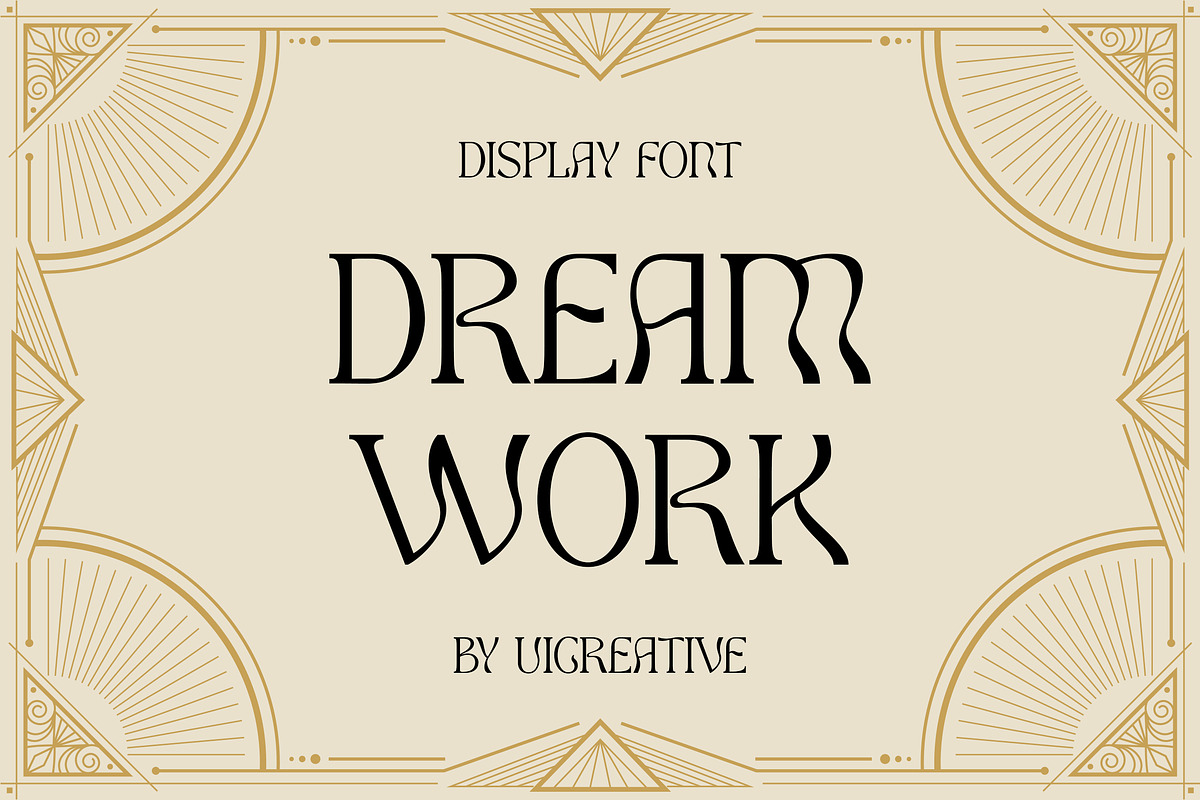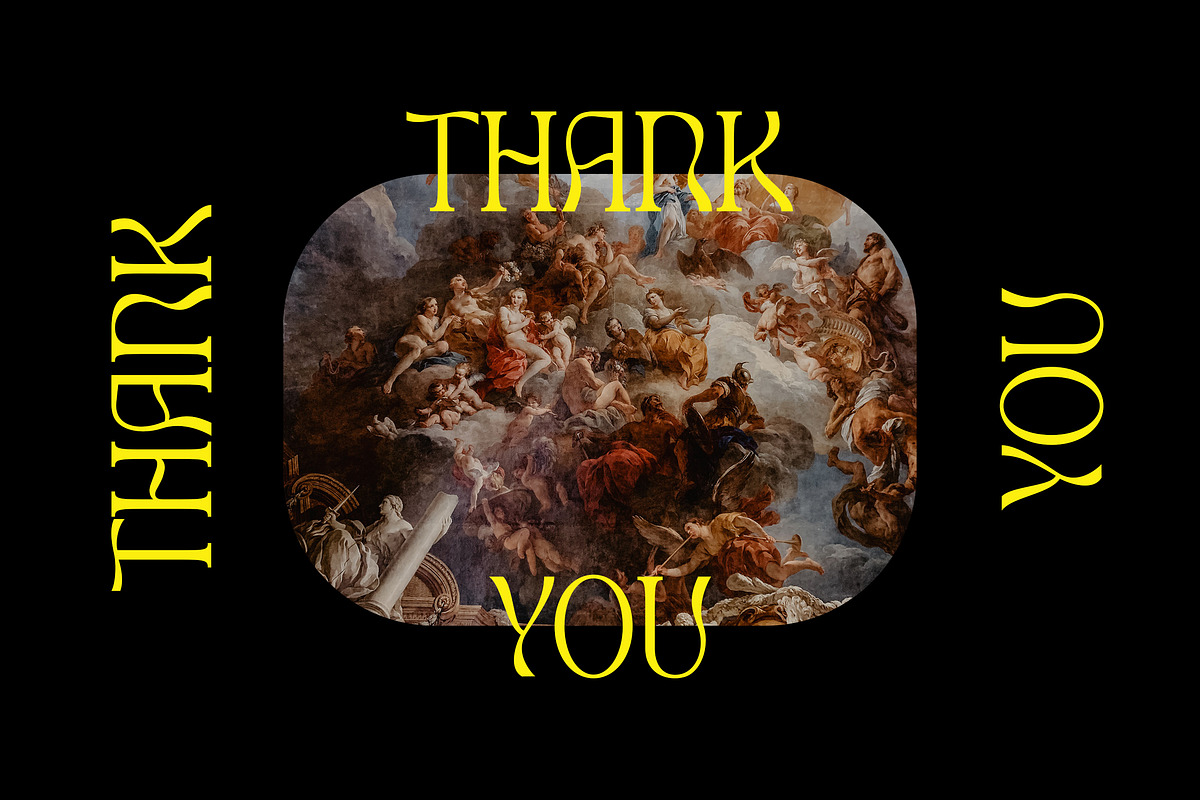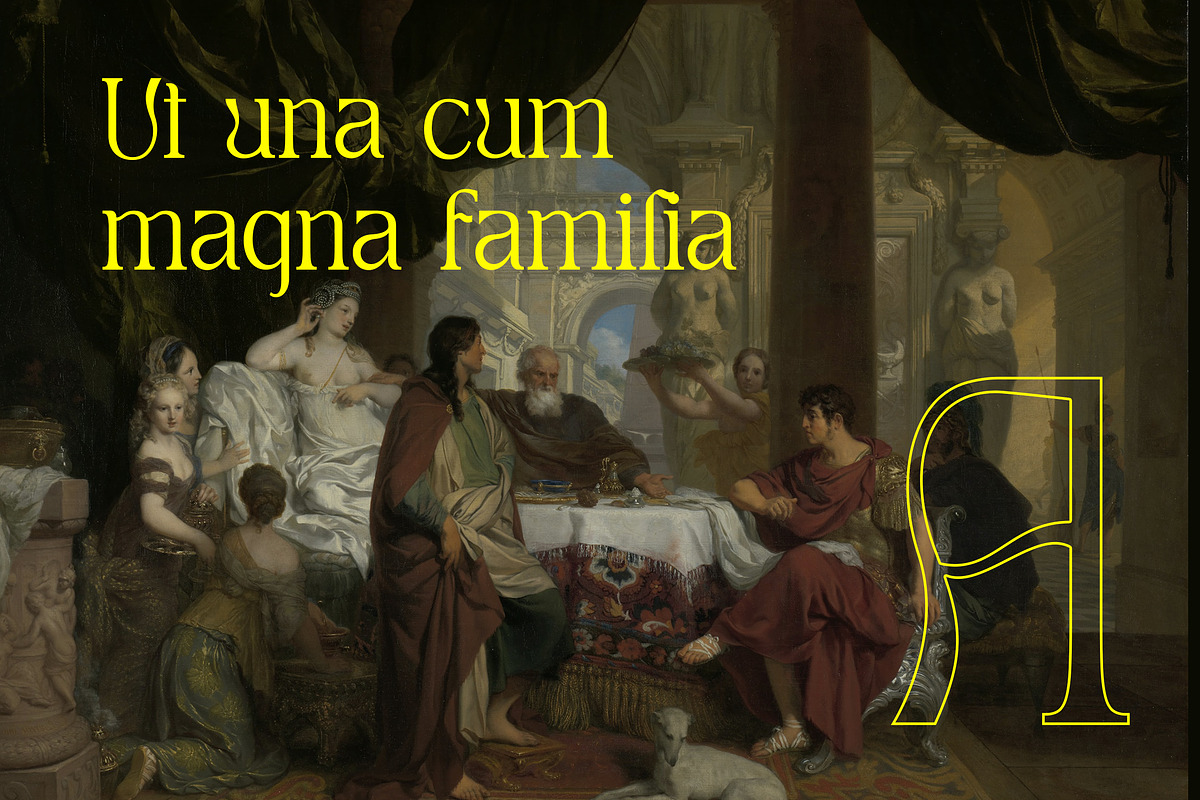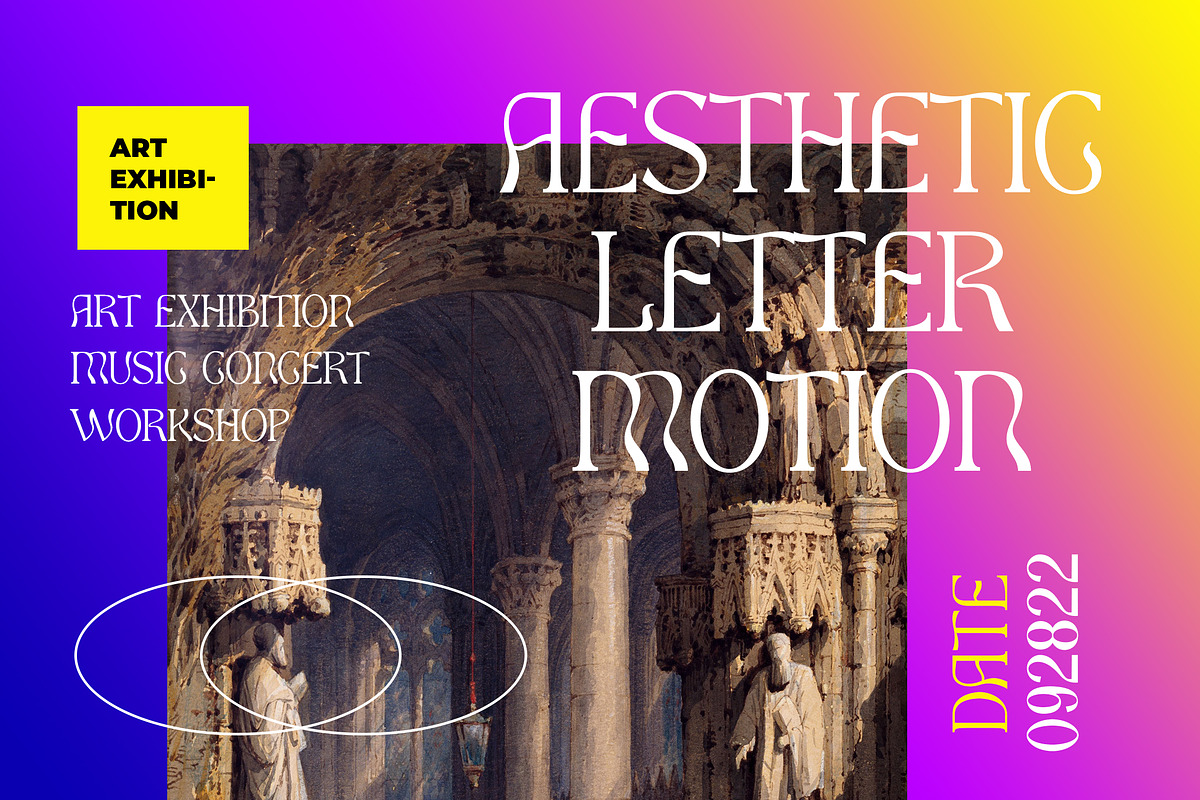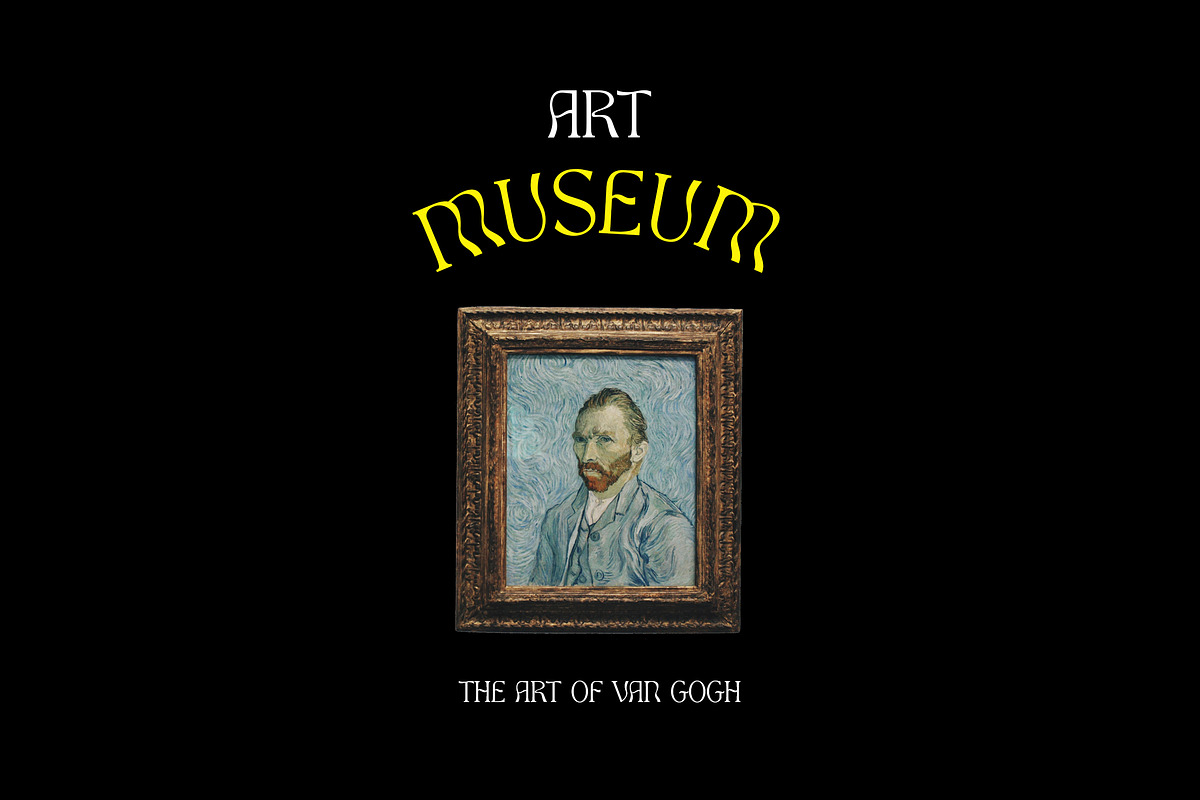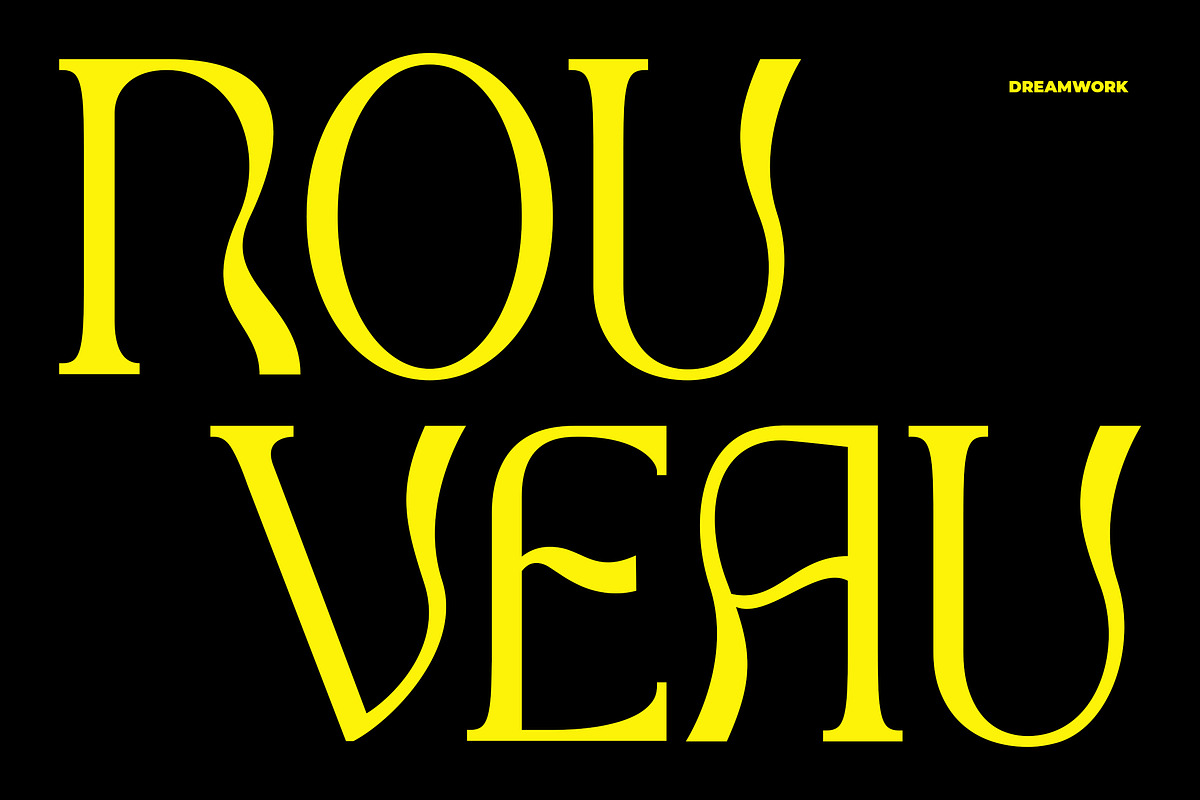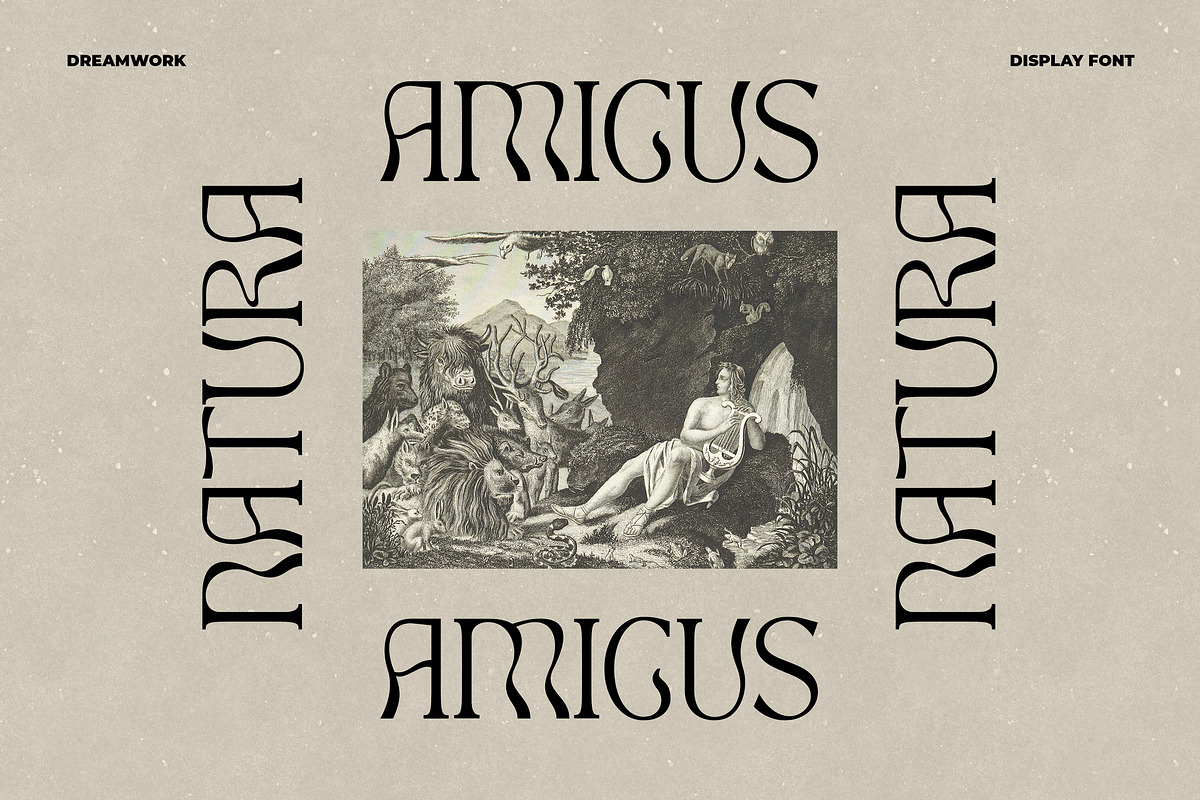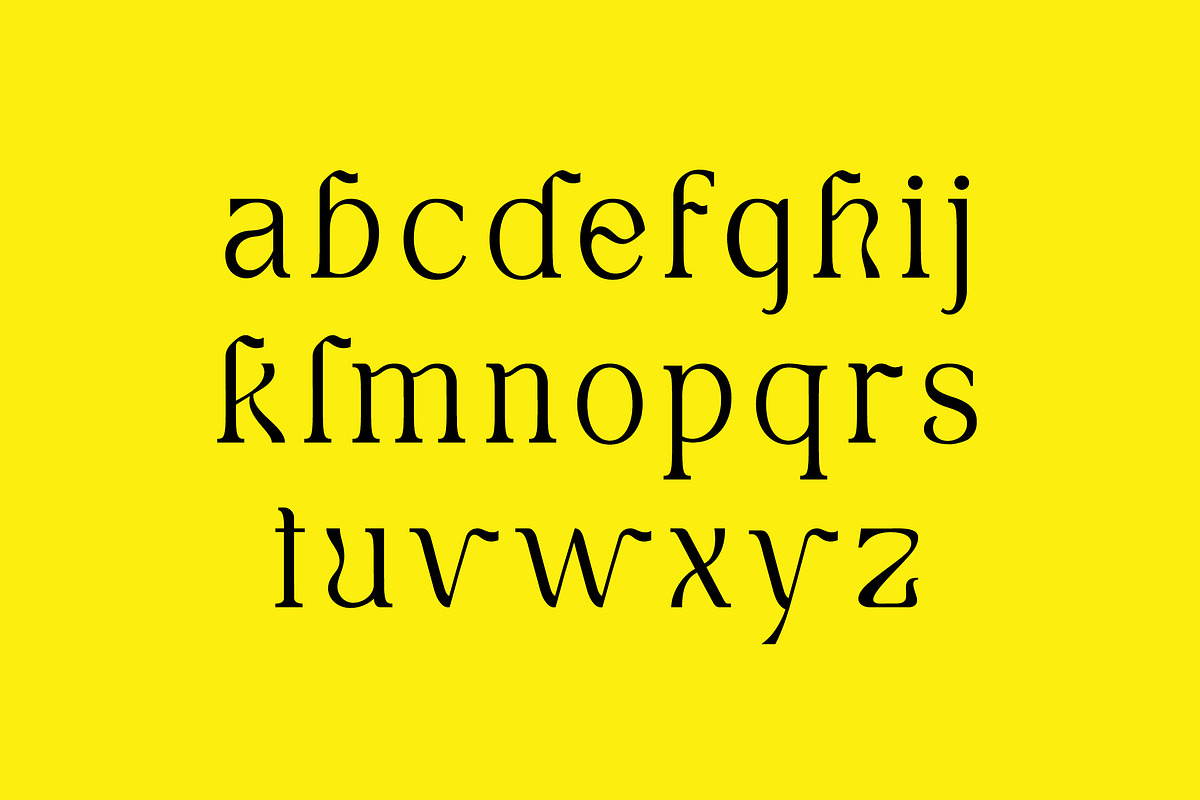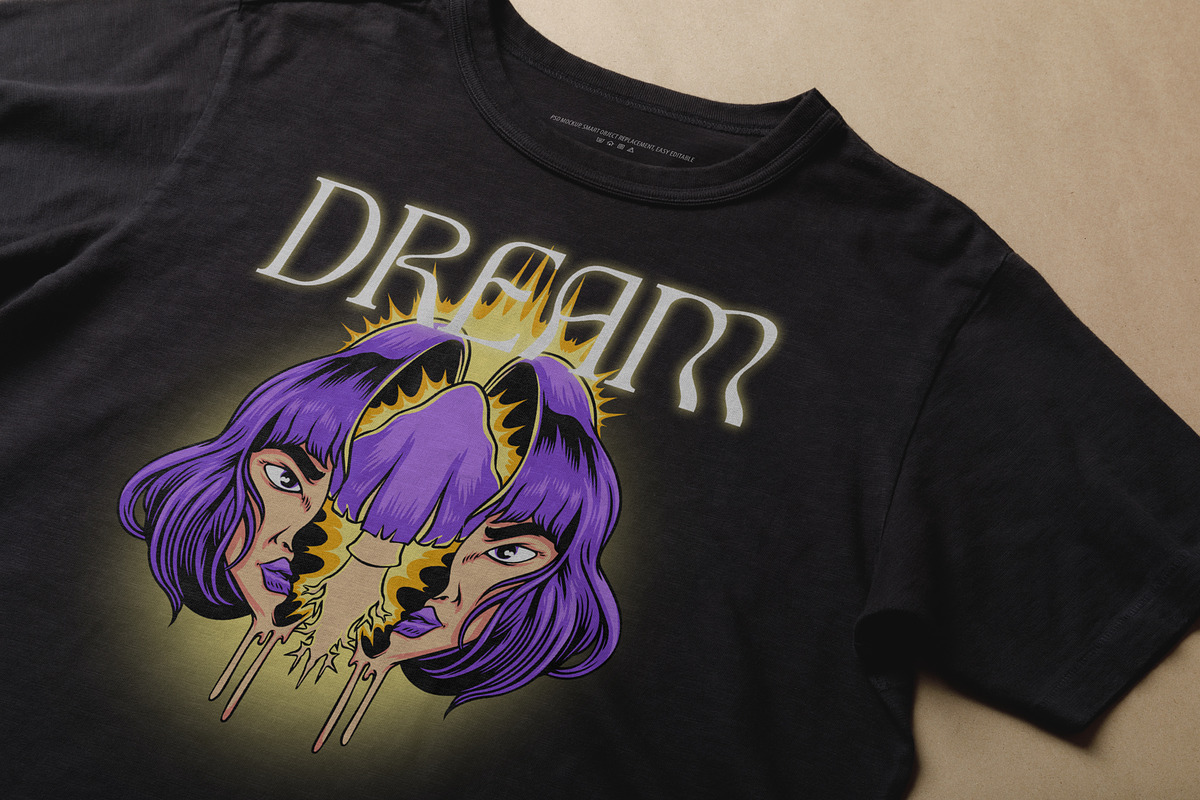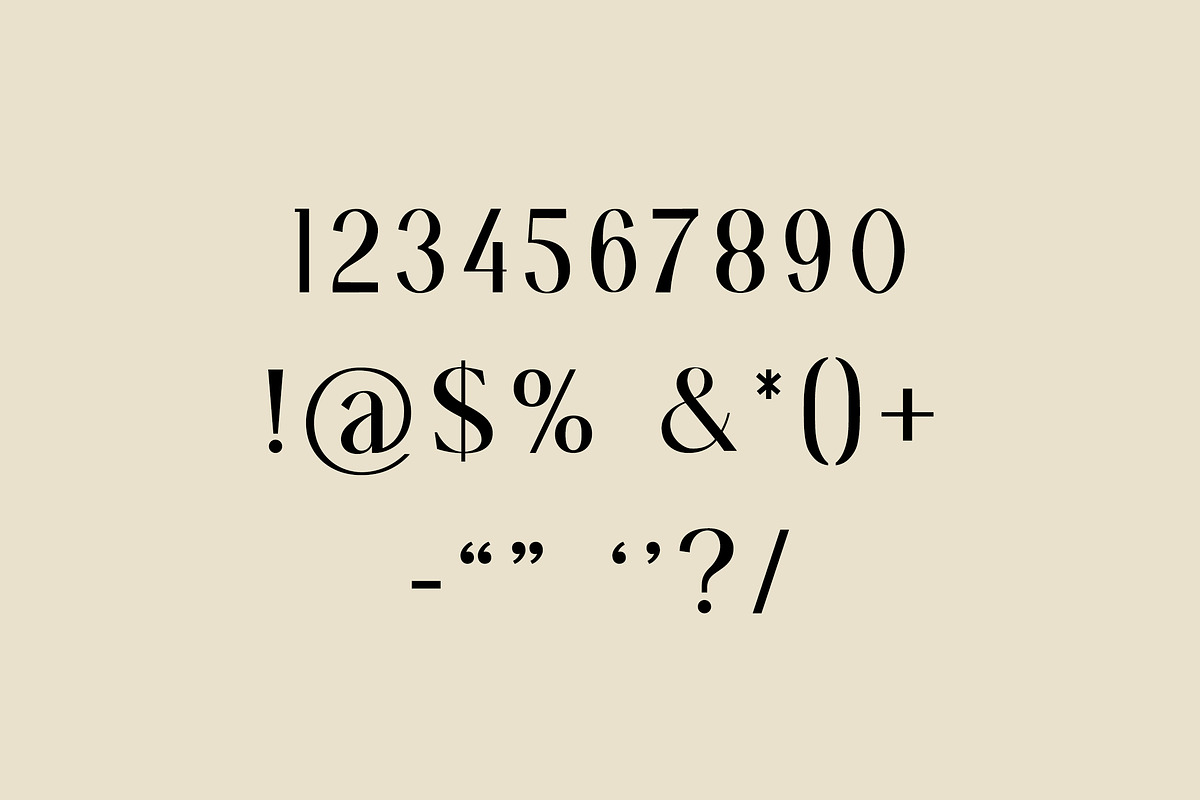
Dream Work Classic Modern Serif
Introducing our new product the name is Dream Work Classic Modern Serif. Modern Serif font that feels beautiful classy, elegant, and modern. This font is ideally suited for a wide variety of projects, such as signature, stationery, logo, wedding, typography quotes, magazine or book covers, website headers, clothing, branding, packaging design, and more. Also, fashion-related branding or editorial design displays both masculine and feminine qualities.